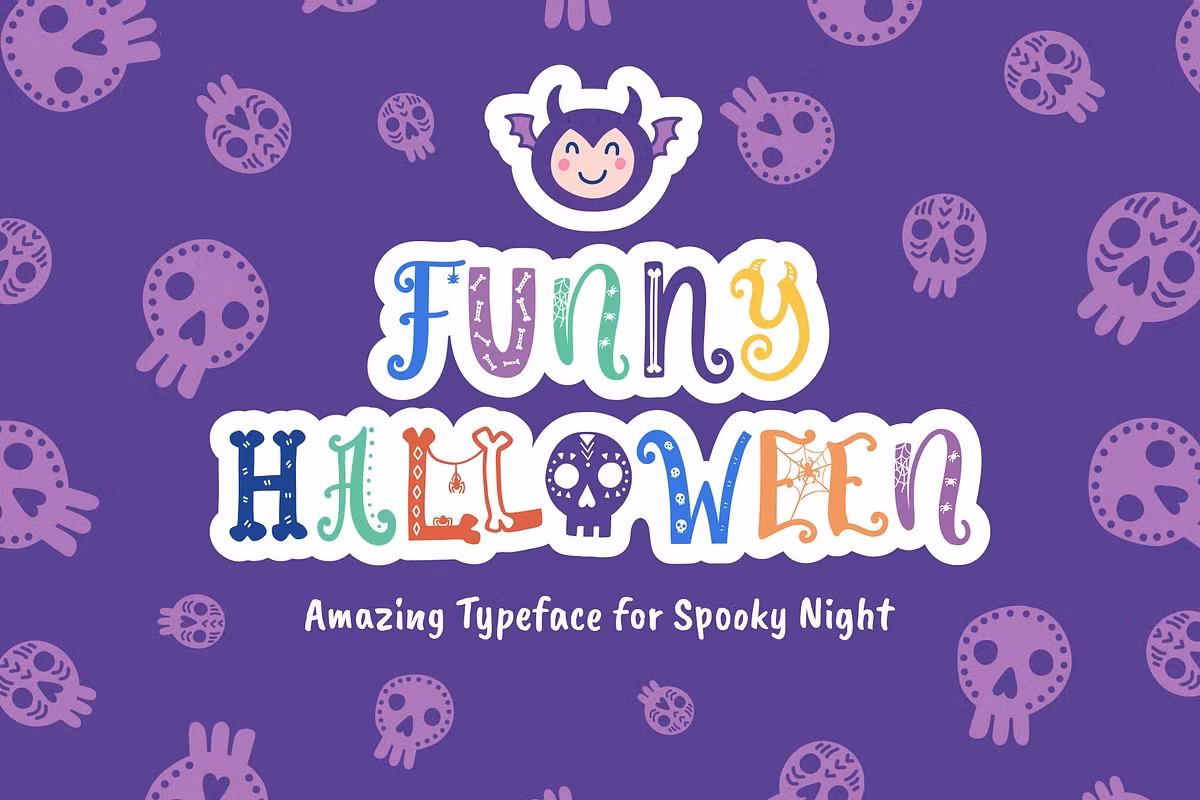
Funny Halloween Font Free Download is a light-hearted, spooky-cute typeface perfect for adding a playful twist to your Halloween designs. With its quirky shapes and cartoonish charm, this font is ideal for kids’ party invites, trick-or-treat bags, seasonal merch, and social media posts that need more giggle than ghoul.
Designed to mix spooky vibes with a sense of humor, Funny Halloween Font Free Download features bouncy letters, soft edges, and whimsical details. It’s the go-to font for anyone creating family-friendly Halloween graphics, school event flyers, or cute costume party decor.
From pumpkins with goofy grins to ghosts that giggle, this font brings a cheerful tone to an otherwise spooky season. Add a pop of color and some fun illustrations, and you’ve got a complete Halloween vibe that’s more sweet than scary.